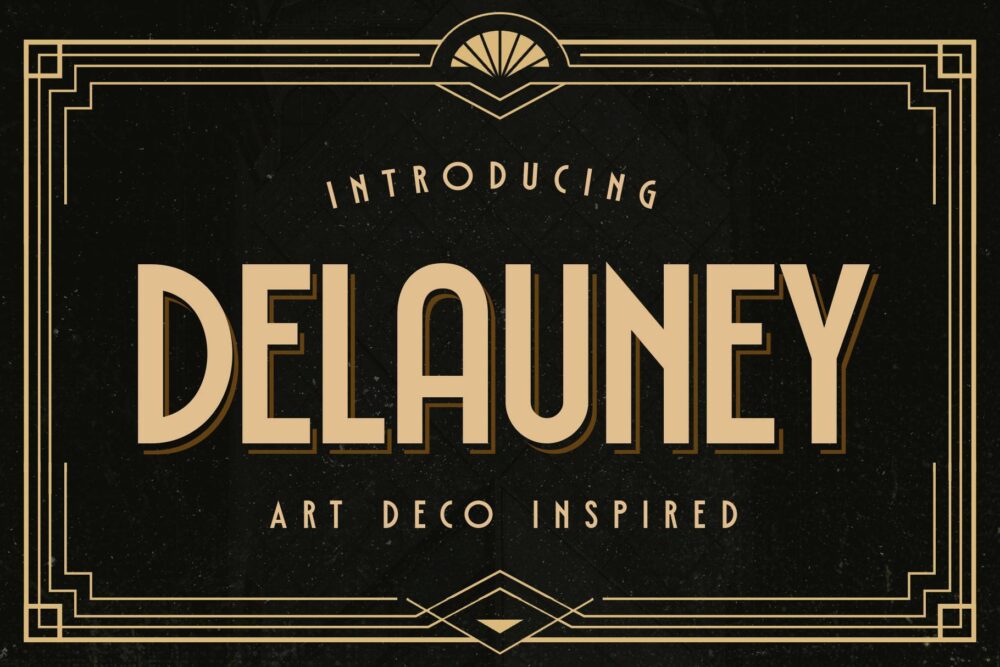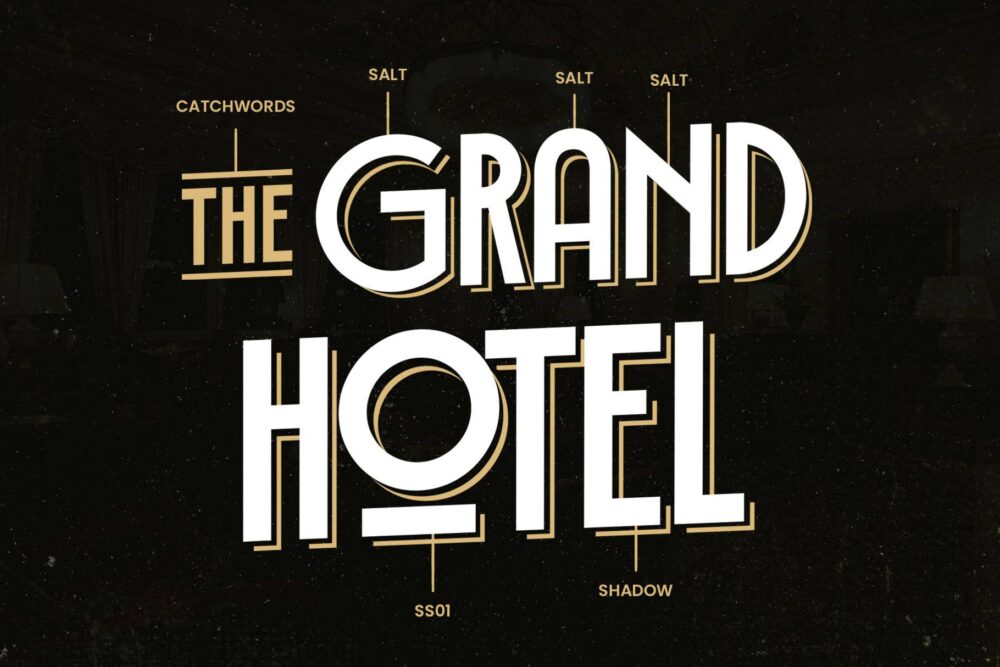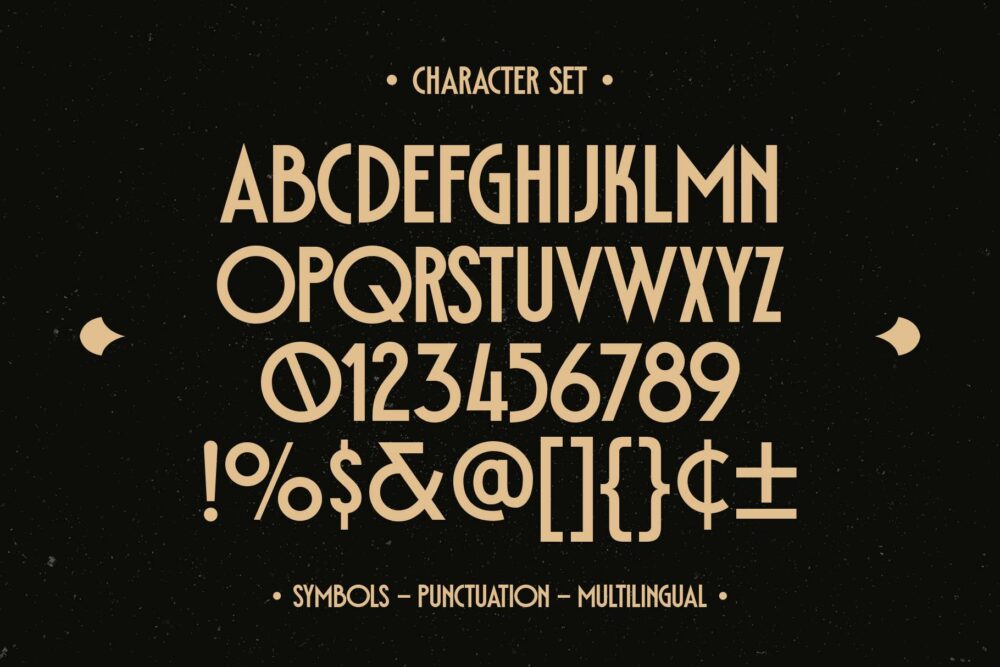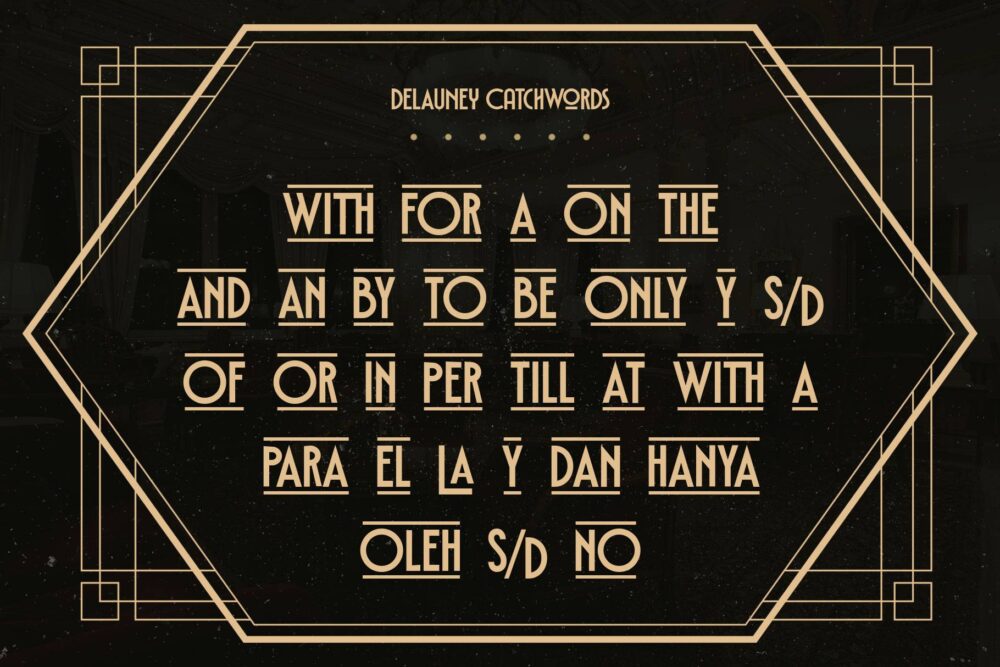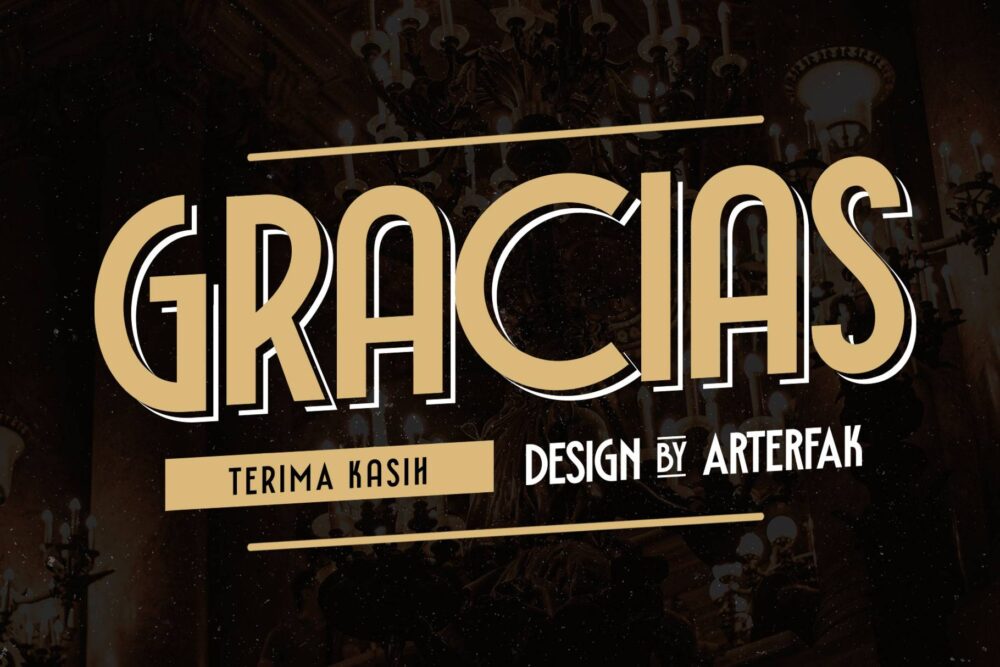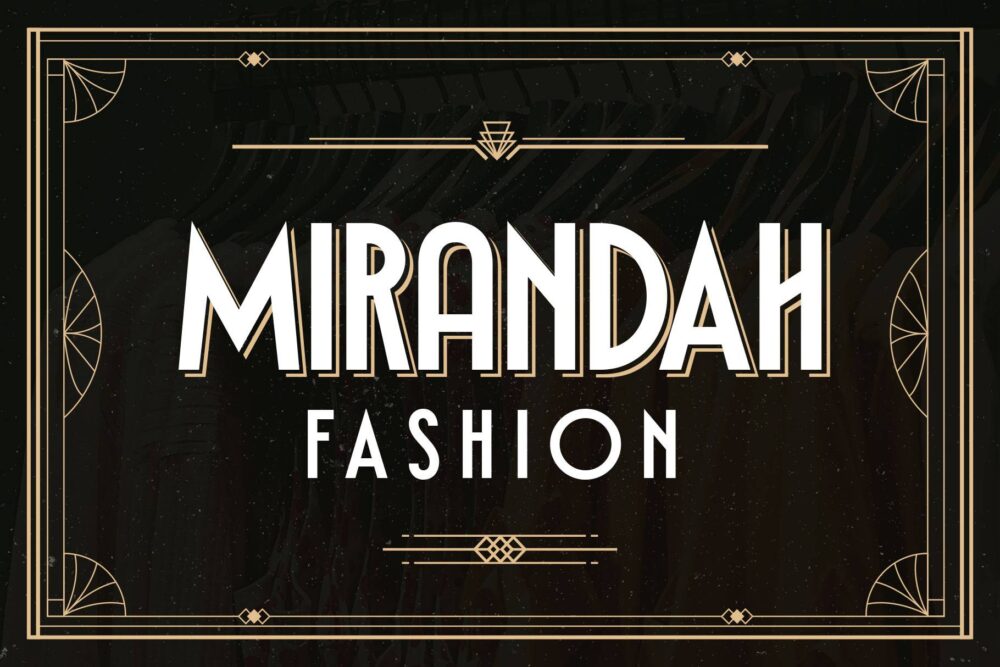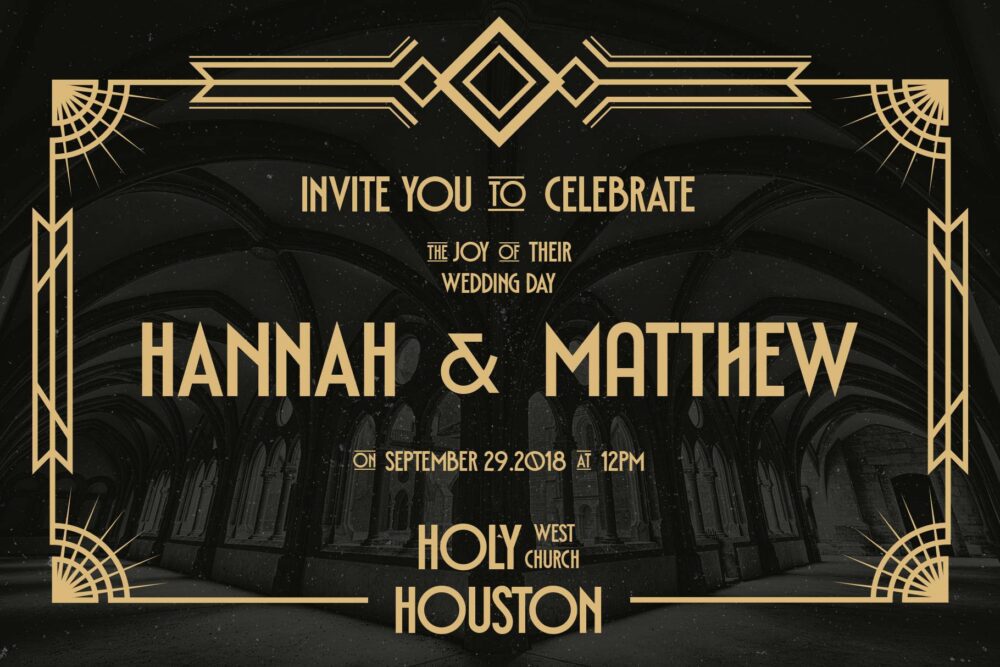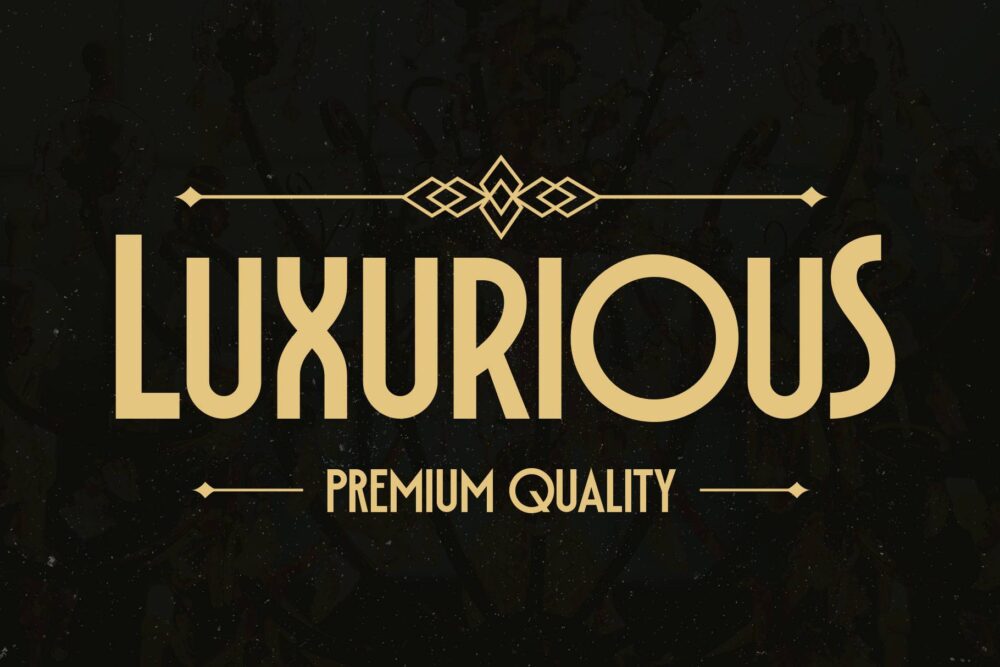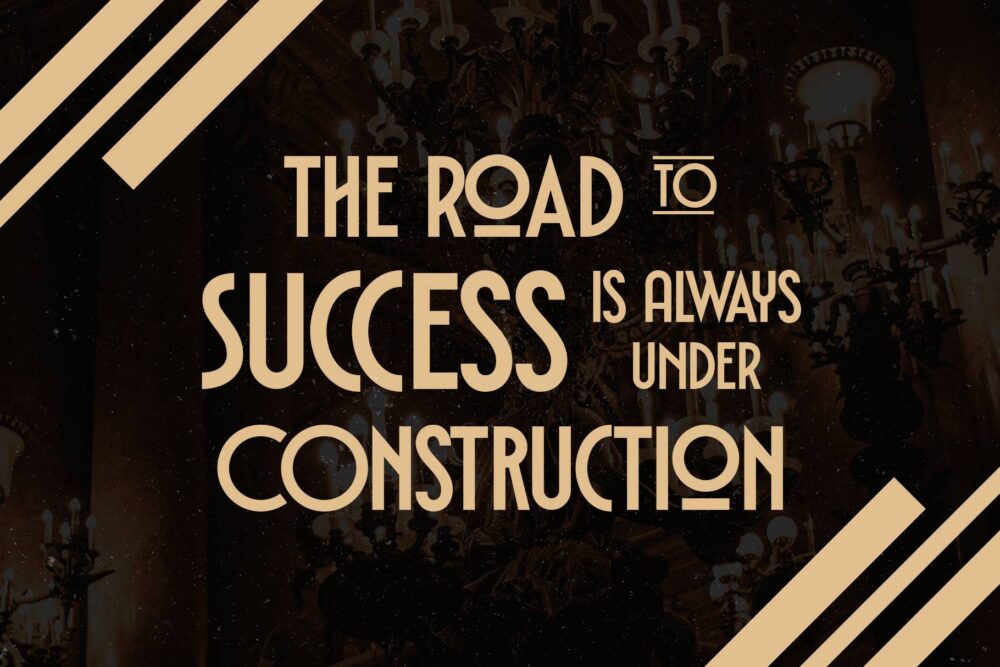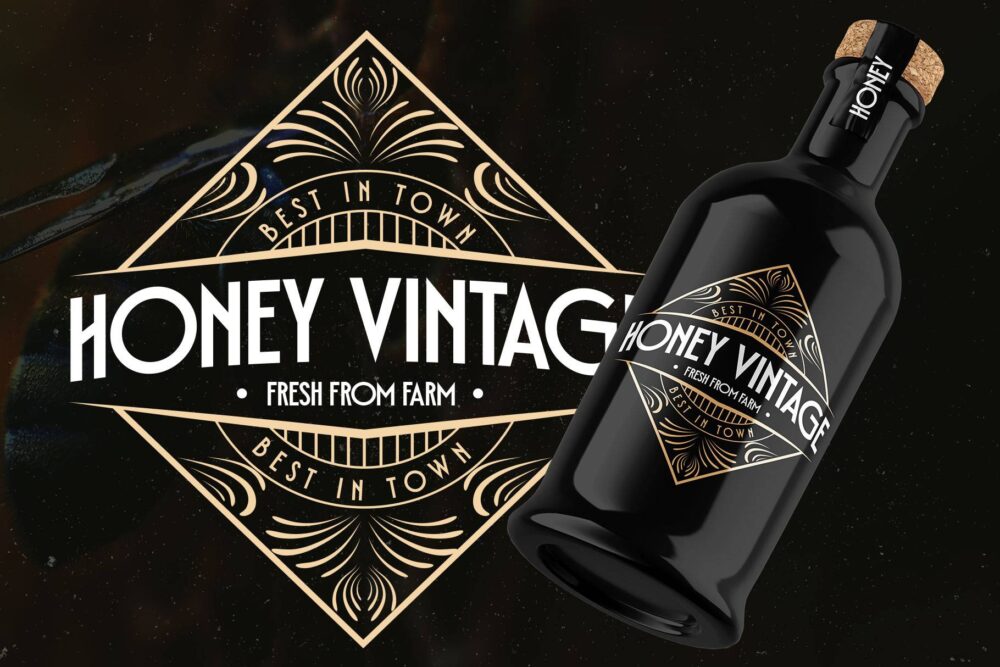
Delauney - Regular
Delauney - Shadow
Delauney - Catchword
Delauney is a display font, inspired by the Art Deco style from the 1920s. Delauney visualizes luxurious looks, elegance, and wealth. This font is an all-caps font designed with geometric shapes and firm strokes that gives a clear look and minimalist.
Delaunay also has some OpenType features and accented characters to give you many alternatives in your creative process. A great choice for your headline, title, label, editorial, logotype, quotes, typography, and more!
Delauney provides three styles :
• Regular: The main style for display or headline
• Shadow: Secondary style that you can use to beautify the Regular one.
• Catchwords: Available in three languages; English, Spain & Bahasa. Complete your words to look more decorative.
• Delauney – Regular
• Delauney – Shadow
• Delauney – Catchwords
• All-caps character set
• Numbers & punctuation
• Multilingual
• Stylistic alternates
• Stylistic Set